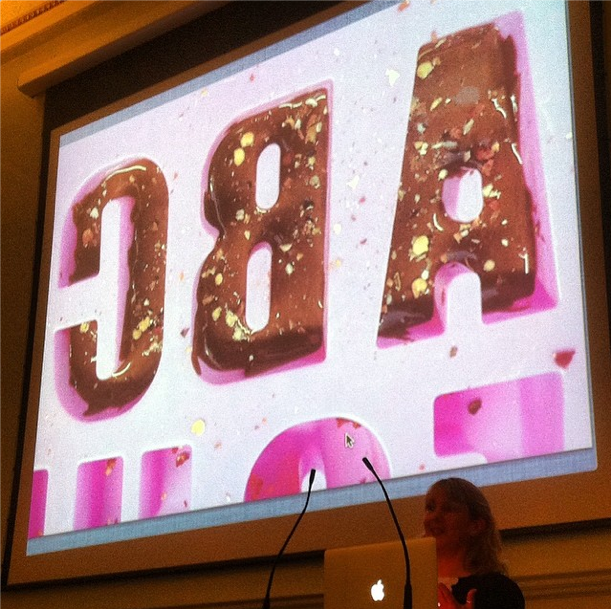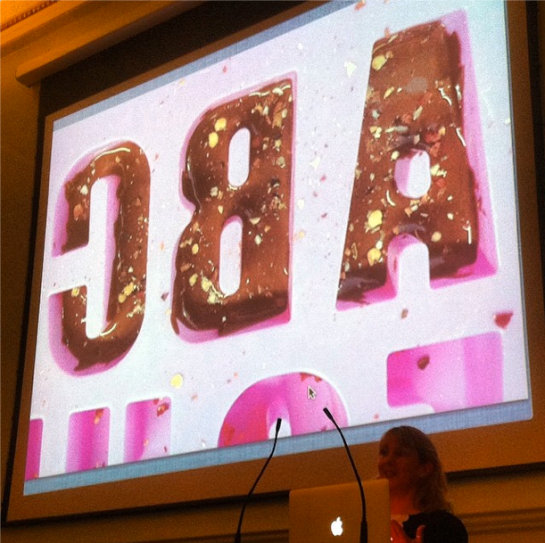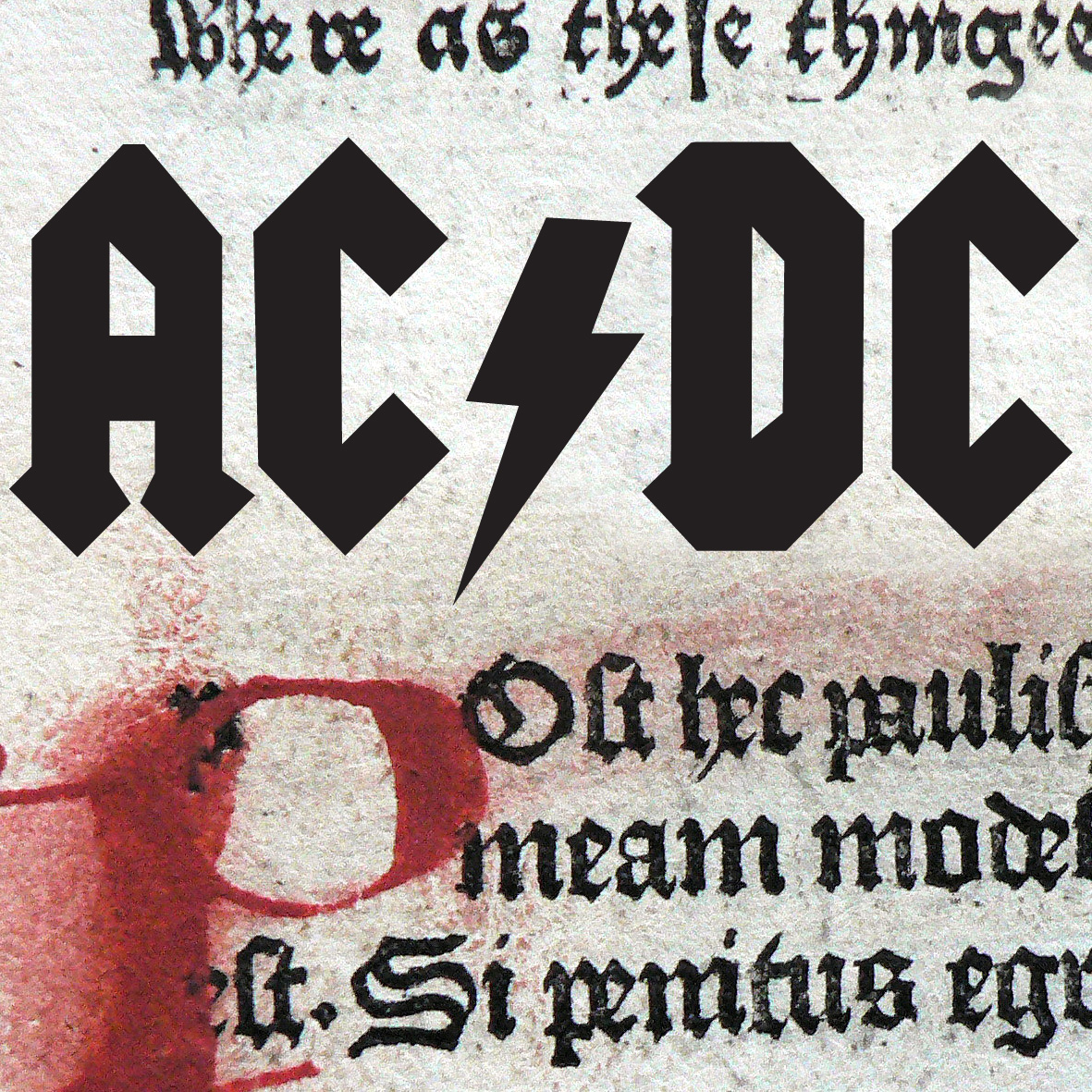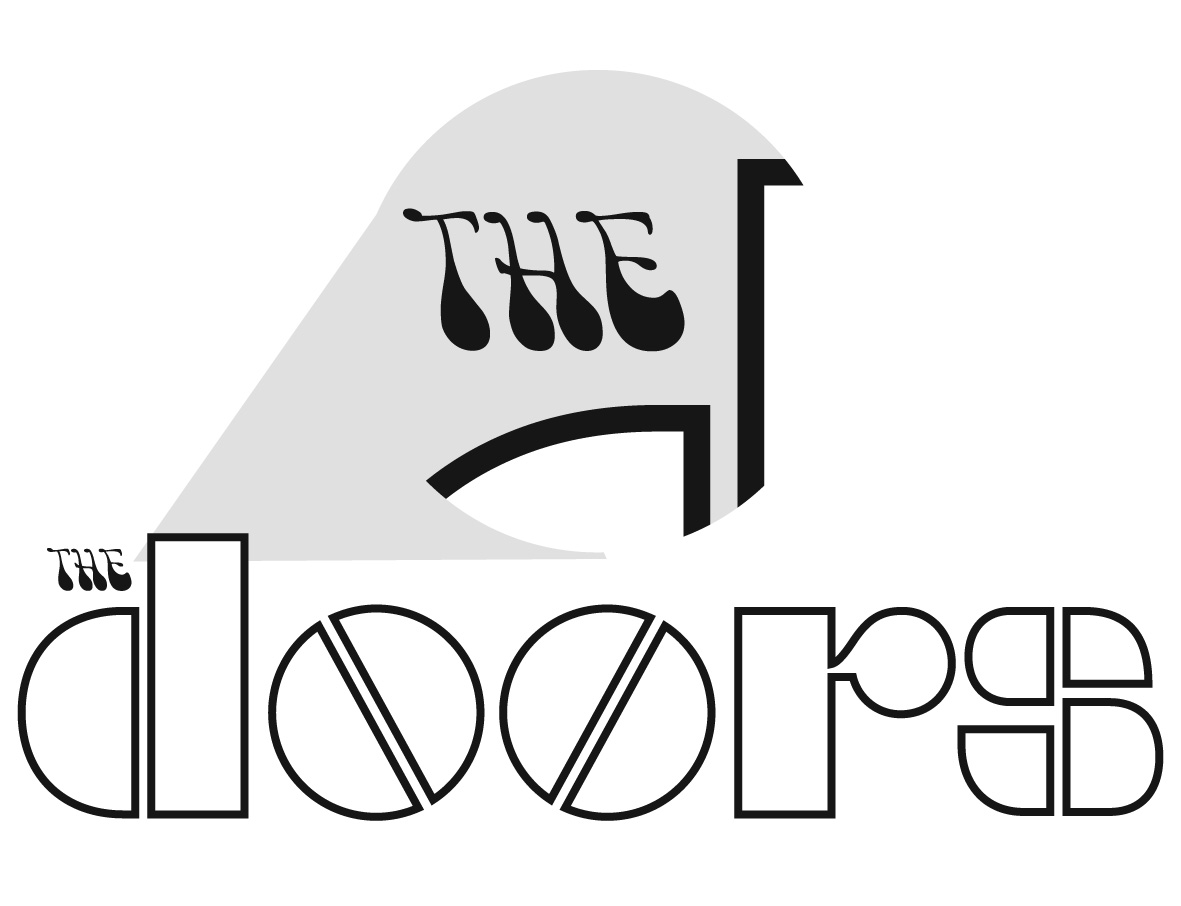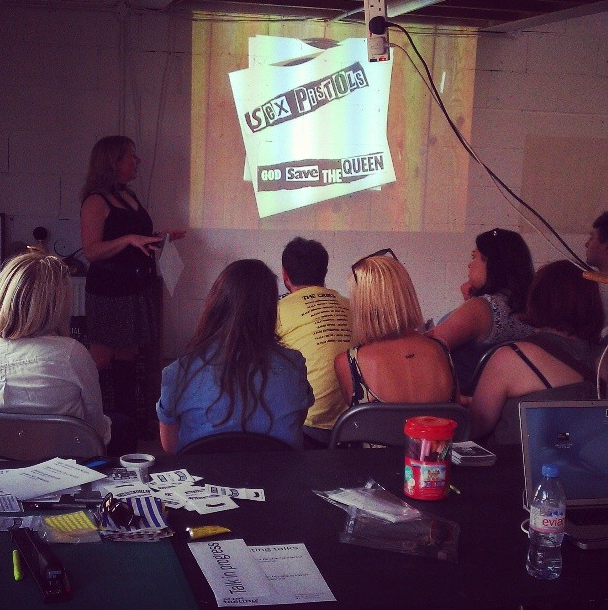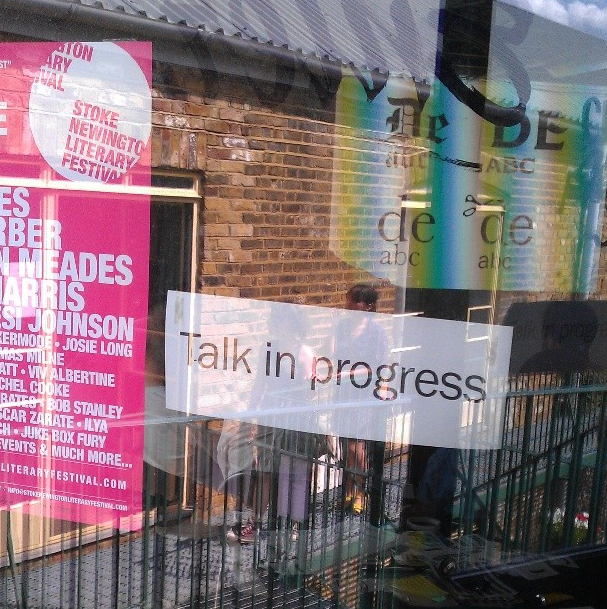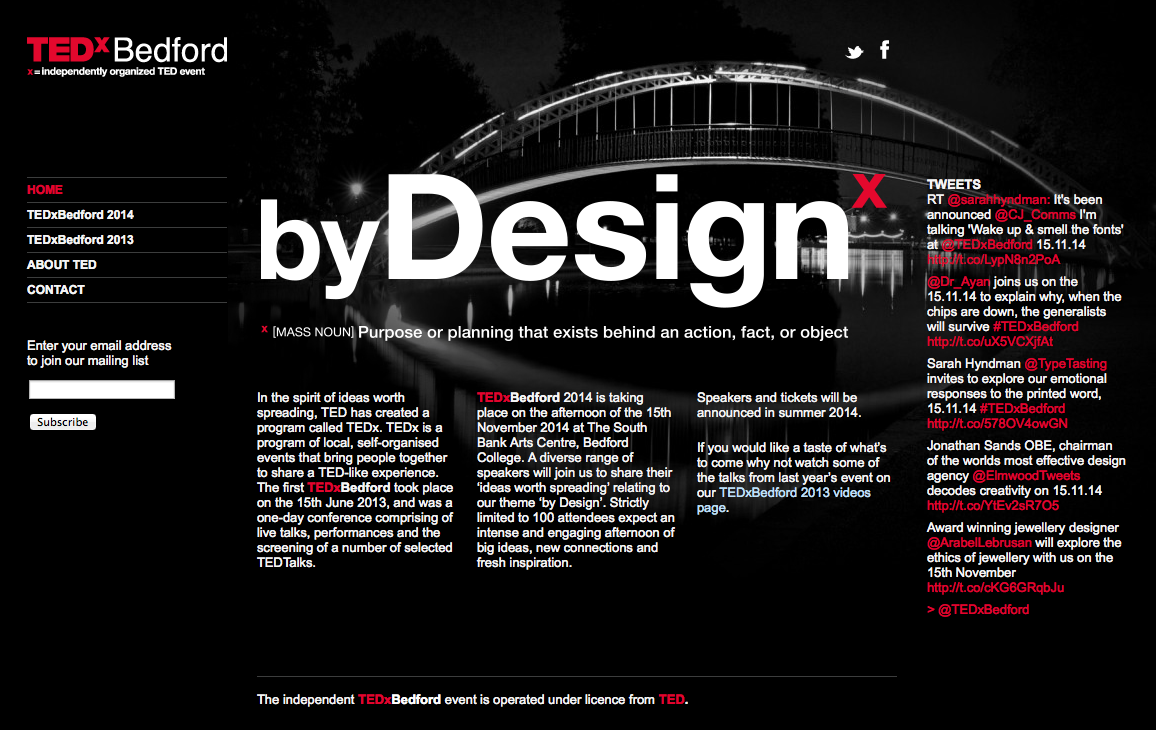
‘Tasting Type’ at TYPO, San Francisco
TALK: TASTING TYPE, SARAH HYNDMAN
South by Southwest here I come…
I’m looking forward to an exciting couple of weeks in Austin, Texas leaving next week. I’m honoured to be presenting a short talk on Saturday March 14th and then I get to spend the rest of the time being curious and inspired by the unfolding themes and ideas, many of which will be influencing us tomorrow. It’s an amazing event to be a part of so I’m delighted to be going back and it’s going to be great to meet up with the friends I made last time.
TEDxBedford Sarah Hyndman
Wake up and smell the fonts
Sarah shares with us a story of type and invites us to consider our emotional response to the printed word. Each font/typeface has a personality that influences our interpretation of the words we read by evoking our emotions and setting the scene. We all understand this instinctively but it happens on a subconscious level. Sarah shows us that conscious awareness of the emotional life of fonts can be entertaining and ultimately give us more control over the decisions we make.
We are all type consumers and typefaces, or fonts, play a vital role in our everyday lives. They help us to navigate, they help us to make choices, they help us to shop, they keep us safe and sometimes they even play a game of sleight of hand. It is hugely important as the world involves that all of those involved in the future communication and technology understand the power of type.
Just because I’m talking ‘typography’ there’s no need for me to be all serious and ‘Times New Roman’ about it.
Wake Up and Smell the Fonts at TEDxBedford
Sarah Hyndman, Wake Up and Smell the Fonts at TEDxBedford
TEDxBedford 2014 is taking place on the afternoon of the 15th November 2014 at The South Bank Arts Centre, Bedford College. A diverse range of speakers will join us to share their ‘ideas worth spreading’ relating to our theme ‘by Design’.
Designer Sarah Hyndman explores typography as we experience it in our every day lives under the banner of Type Tasting. Since the launch in 2013 she’s curated an exhibition at the V&A for the London Design Festival, been interviewed on Radio 4’s Today, taken Type Tasting to South by Southwest in Austin, Texas and has been commissioned to write a book.
Sarah has been a graphic designer for over 15 years, working in agencies before setting up design company With Relish. After studying an MA in Typo/Graphics at the London College of Communication she was invited back as a guest tutor.
Sarah will share with us a story of type and invite us to consider our emotional response to the printed word. Each font/typeface has a personality that influences our interpretation of the words we read by evoking our emotions and setting the scene. We all understand this instinctively but it happens on a subconscious level. Sarah will show us that conscious awareness of the emotional life of fonts can be entertaining and ultimately give us more control over the decisions we make.
From Dalston to Punk, a weekend of talks
It was a weekend of talking typography with four Type Tasting talks, three of which were sold out ahead of time. The talks were 45 minutes with slides, props and quizzes which revealed how typography evokes associations long before the words have been read. For those of you who came along thank you for being so interactive and for asking great questions, the links and references are below.
On Saturday Sarah Hyndman shared her observations on the typography seen in Dalston, London, and explained what this reveals about the area and how signage is the visual DNA of an area.
The history of type told in ten album covers
Talking Edible Typography at Eye Magazine’s Type Tuesday
Here at Type Tasting I’ve been having conversations about how we respond to different typefaces. Whether we’re type designers, graphic designers or nothing to do with the design industry, all of us are type consumers. We interact with typefaces constantly in our everyday lives and, although it happens on an instinctive level, when we read a word the choice of font also has an effect on us.